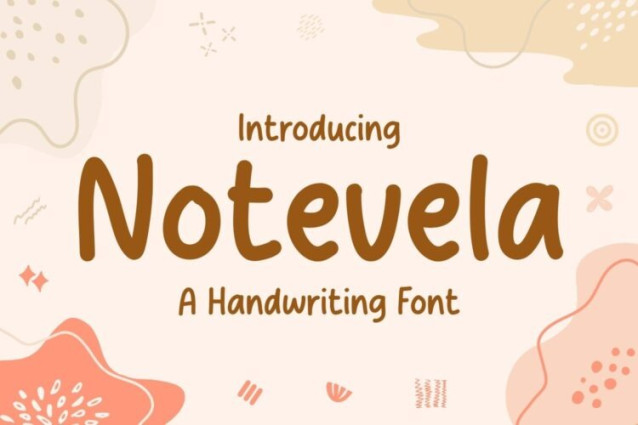
Notevela Font
Notevela Font is a simple and friendly handwritten font. Its natural and unique style makes it incredibly fitting to a large pool of designs. The only limit is your imagination!